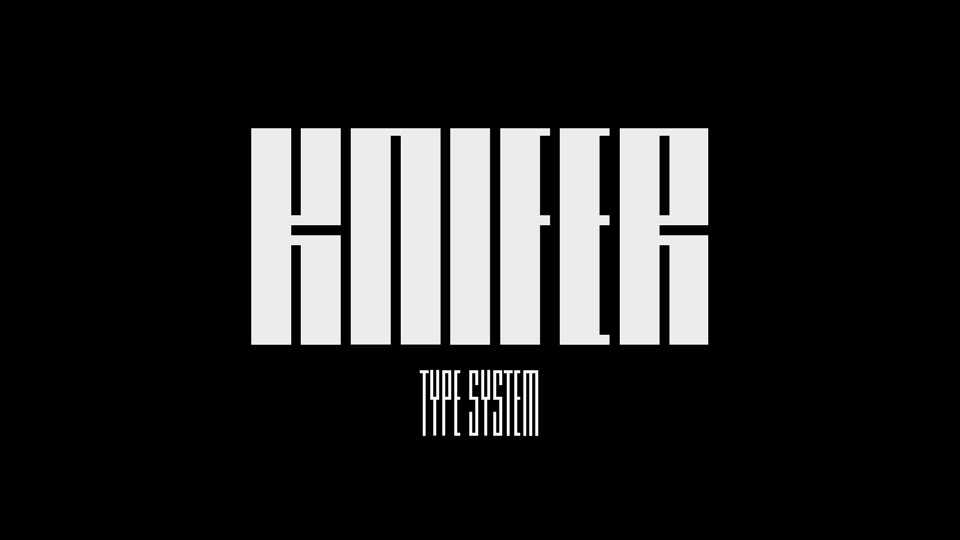
Download Knifer font family, a square style display typeface inspired by the well known Croatian Artist Julije Knifer. It includes 6 fonts which range from condensed weight without contrast to high contrast bold type.
Designer: Marivo